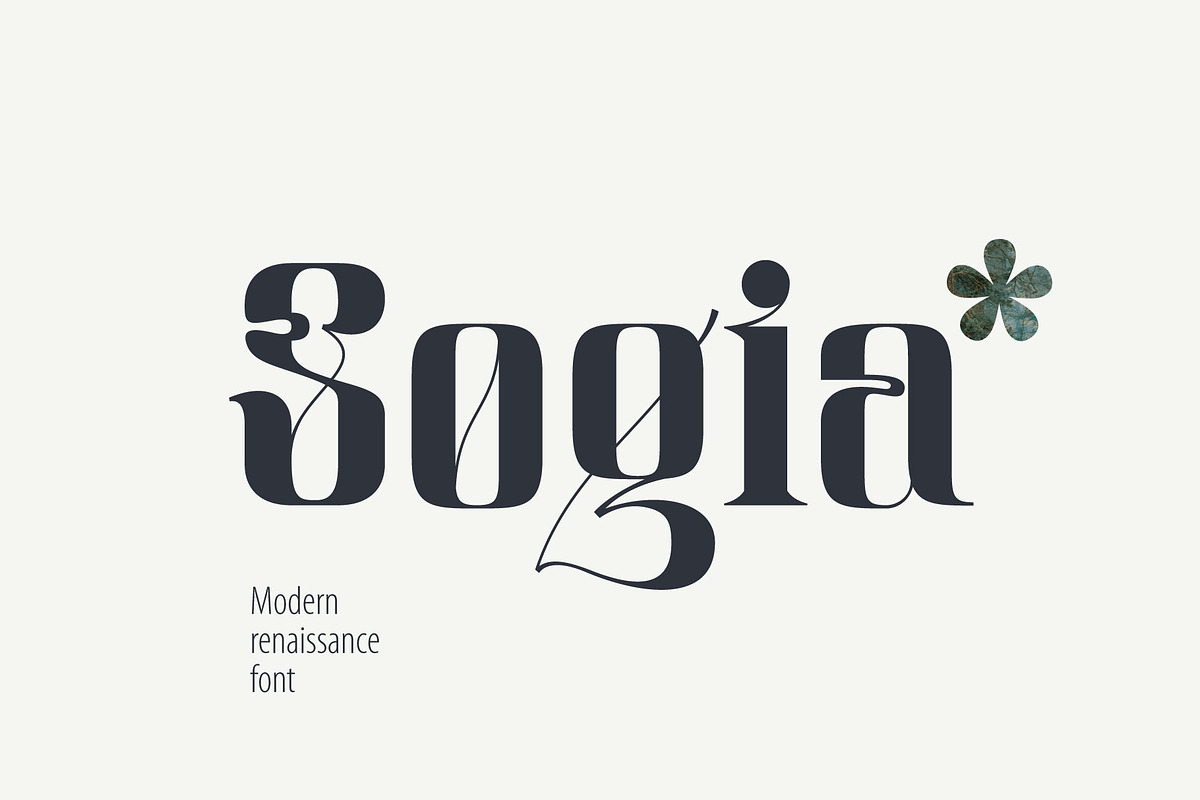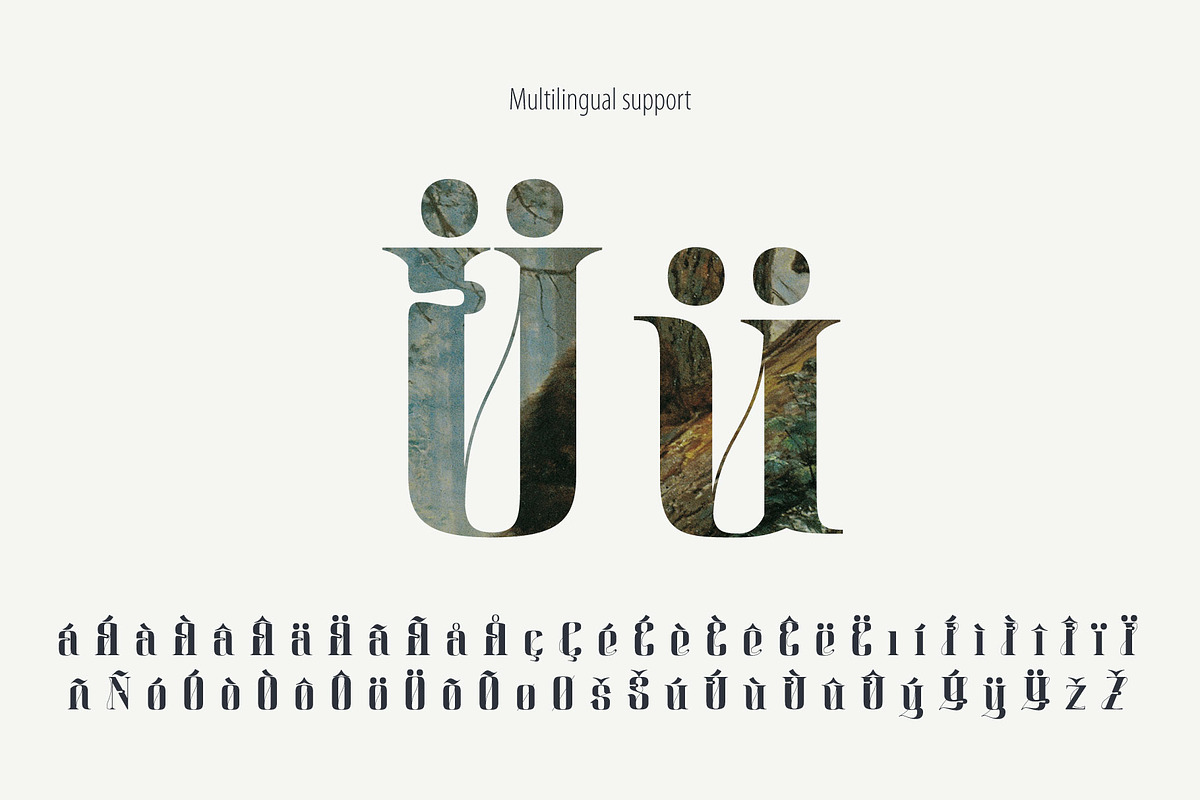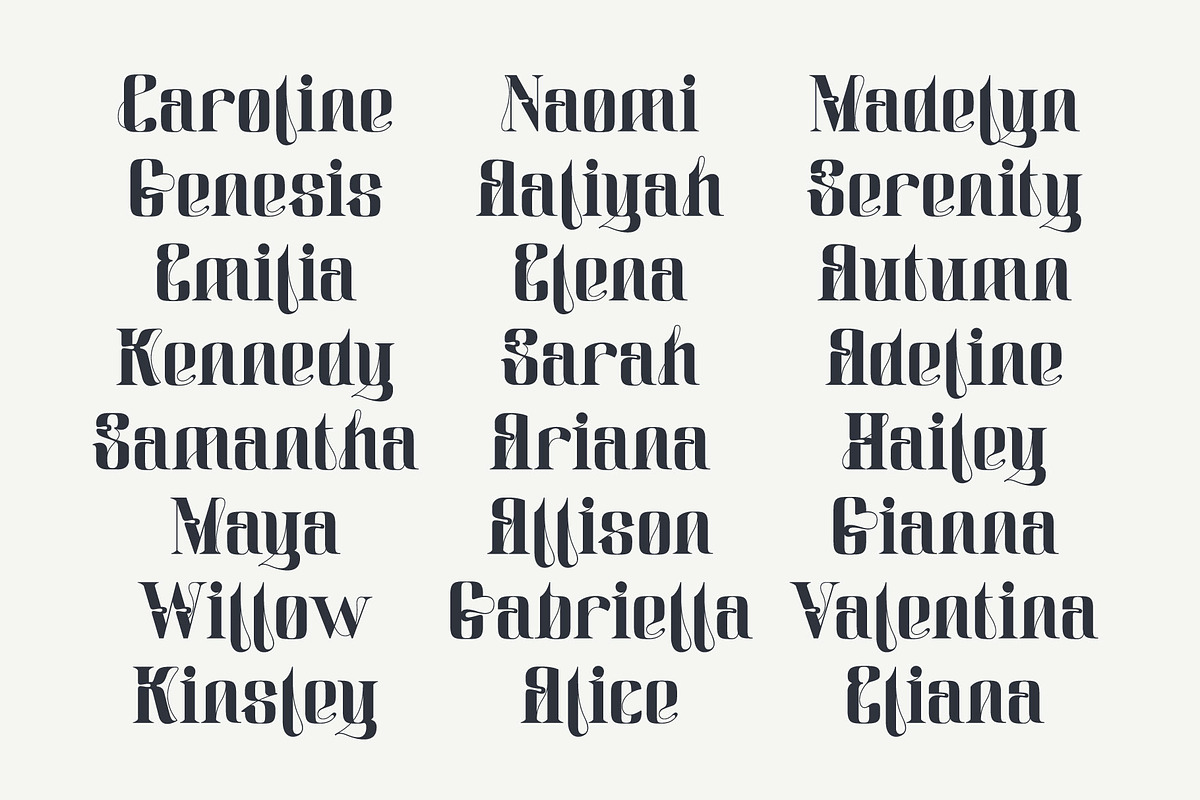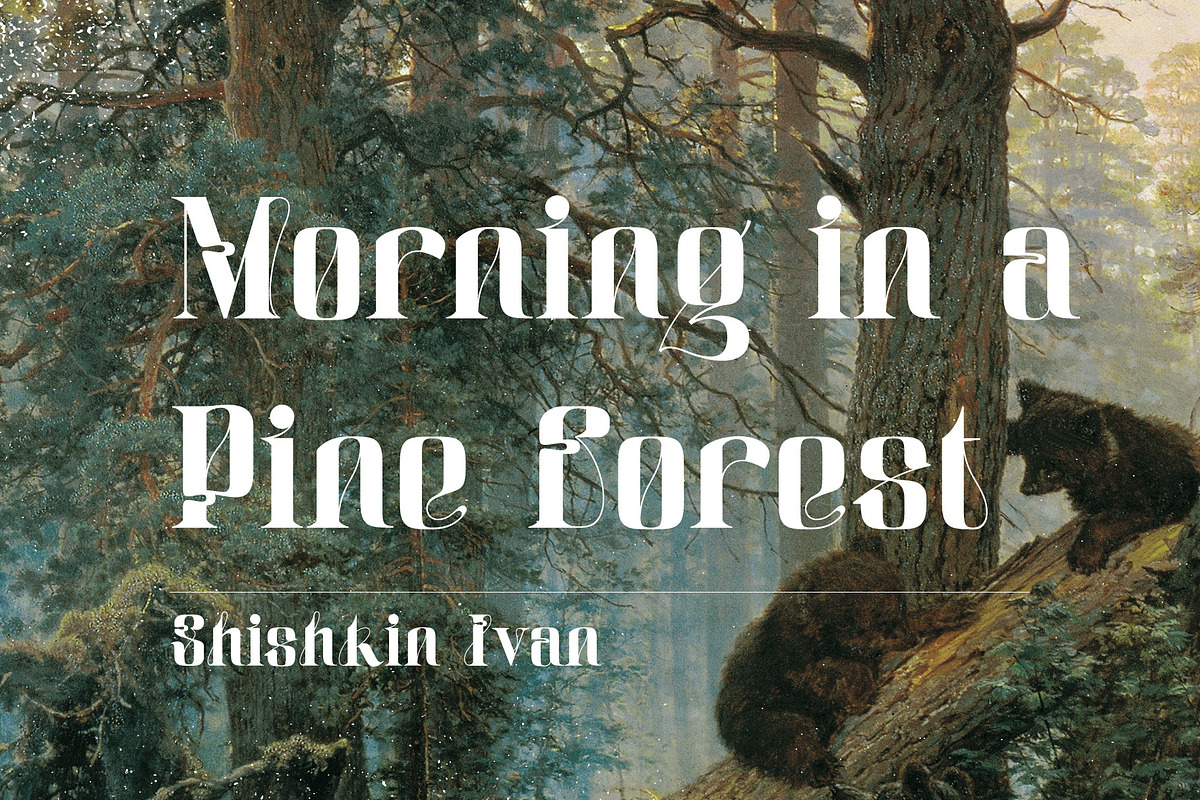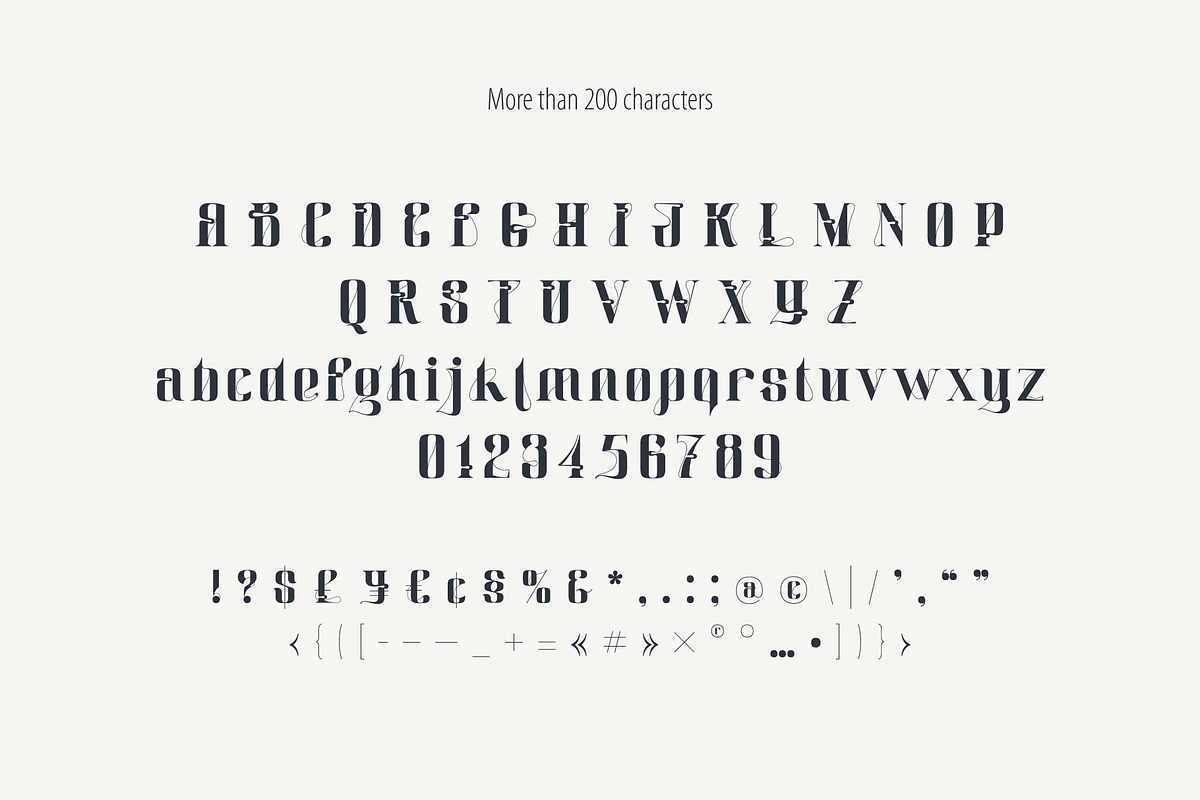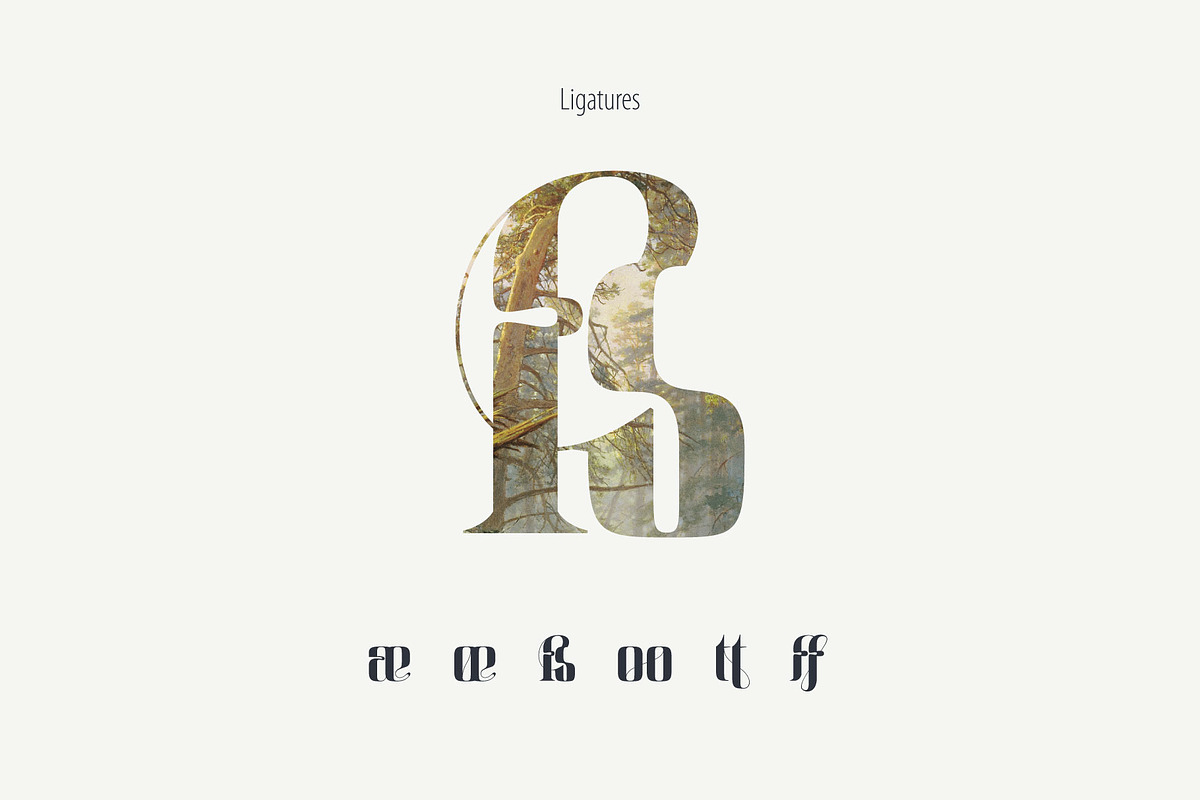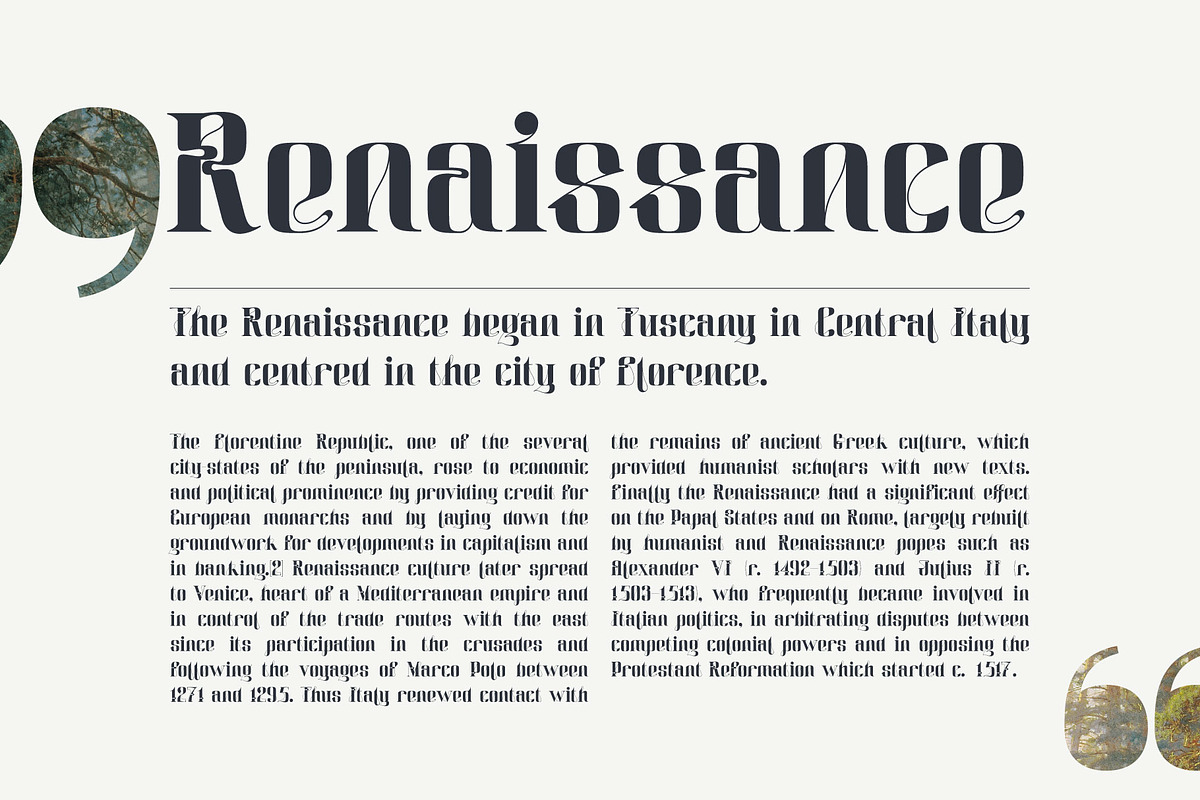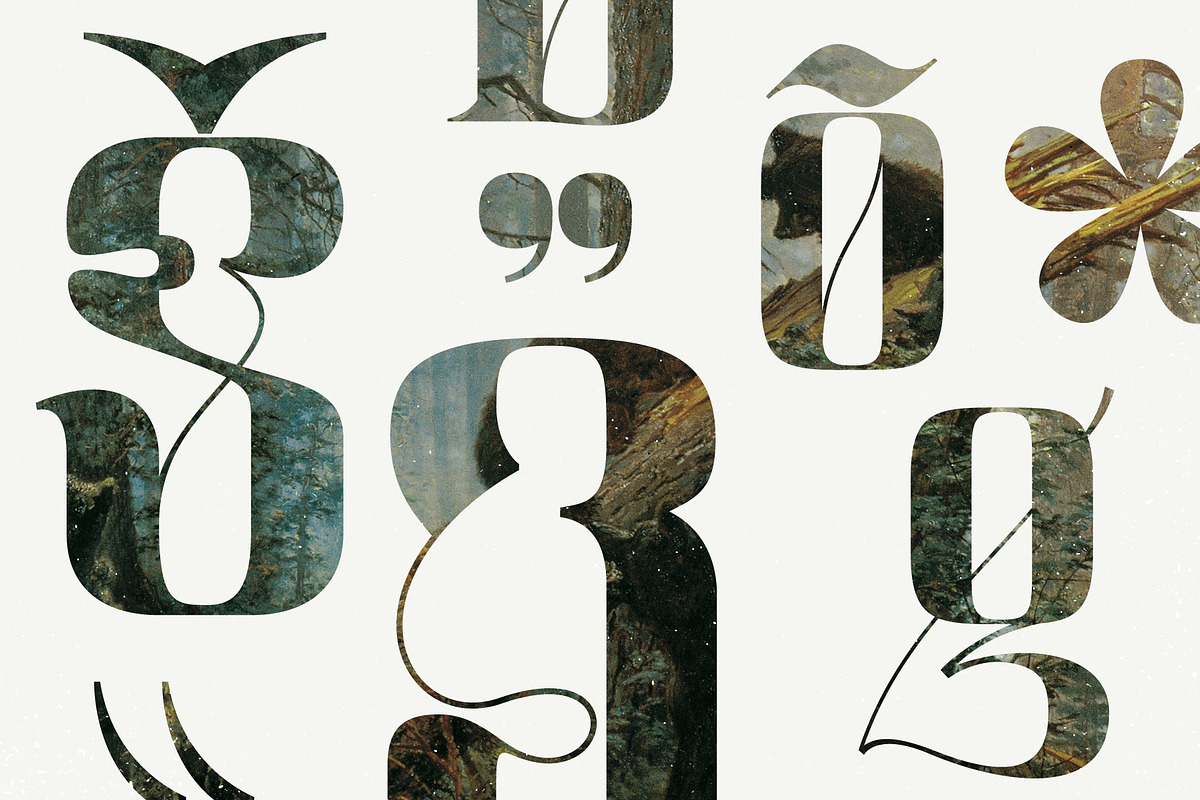
Sogia modern renaissance font
Introducing my new modern Renaissance serif typeface Sogia. Vintage font with unique thin line decoration elements. Perfect to use in any fashion labels, glamour posters, luxury identity, etc.